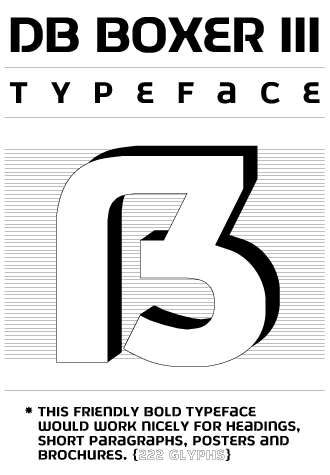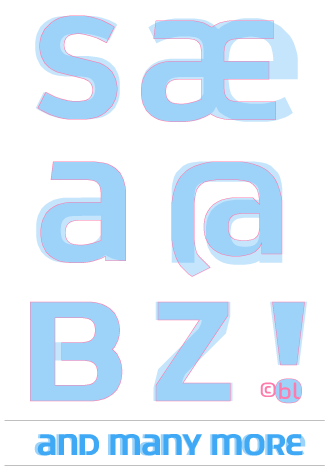
db Boxer III
Sans Serif
Tight, consistent, original. Who can be but you?
This is so awesome in so many ways.
A clean, distinctive design. 10/10++
Yay, beate is back. 11/10
Very smooth. Love the stenciling on some characters.
Very cool awesome, "flowing" work. Nice!
Another beauty by beate ;) How do you do it?!
The @ seems a bit out of place though, but it's not a normal letter.
It's a beauty!
A beautiful revival. 10/10.
Chunky but elegant. I appreciate those extra Latin letters for us Europeans ;) 10/10
Beautiful, such subtle work again! I would love to see a comparison with the original Boxer.
here just a few examples of modifications
Wow, even the way you present your modifications is absolutely exquisite!
I agree completely with four; Are you a professional designer??
this is a great font, it's so close to a vector font
This is fantastically cool!
ESTA MUY PERFECTO